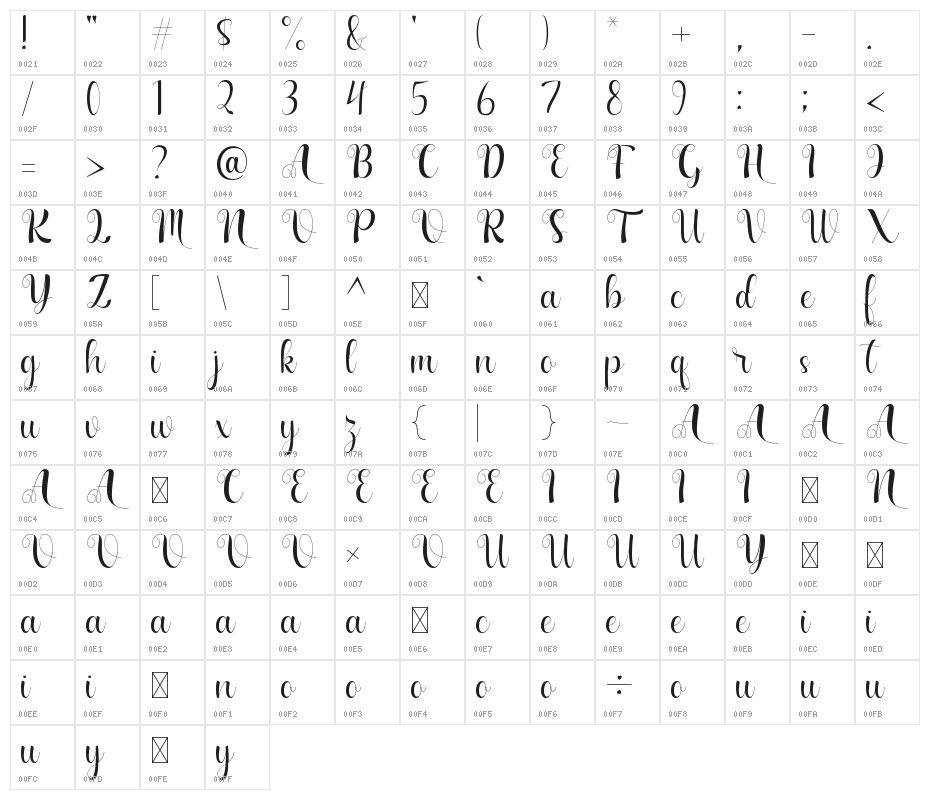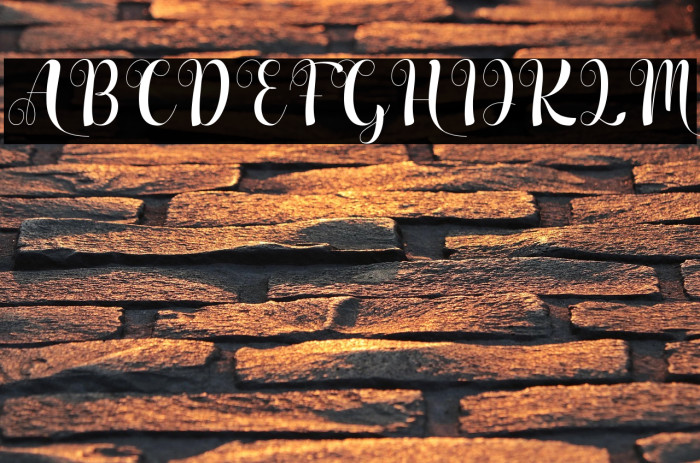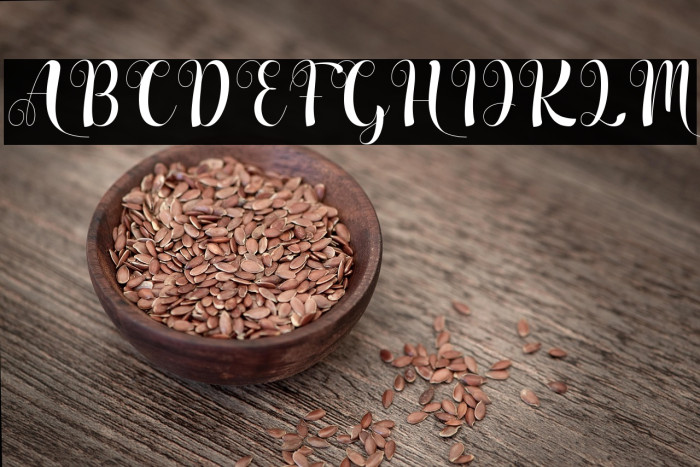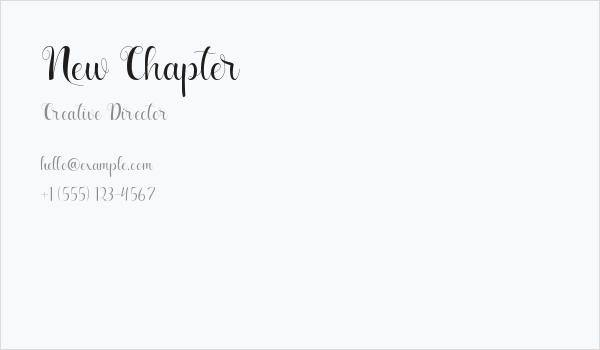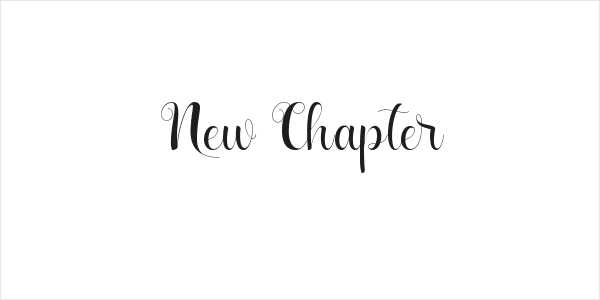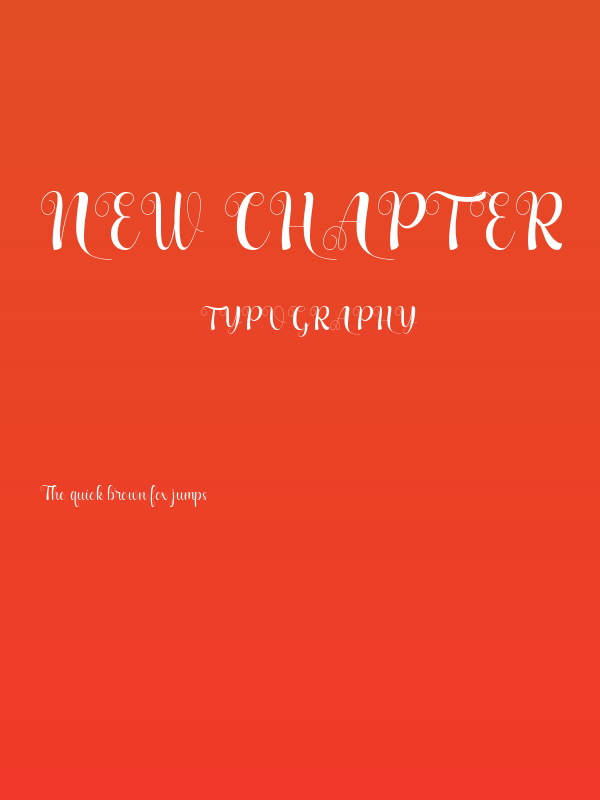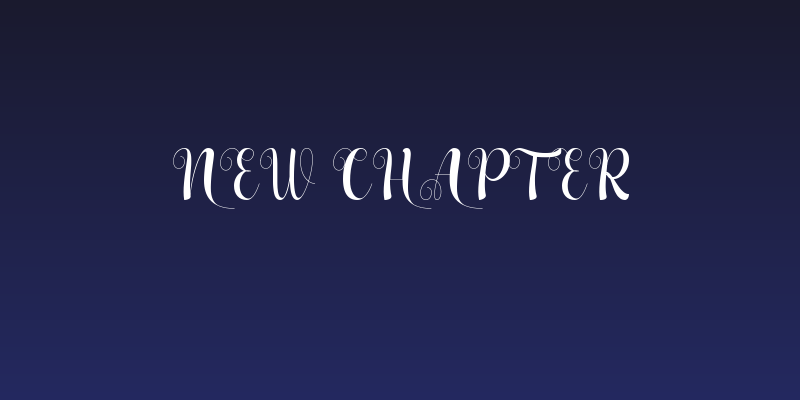
New Chapter Font
New Chapter Description
This elegant script font features graceful, flowing lines and intricate swirls, giving it a sophisticated and artistic appearance. The uppercase letters are adorned with delicate flourishes, while the lowercase letters maintain a smooth, connected style that enhances readability. The numerals are stylishly designed, complementing the overall aesthetic of the font. Special characters are crafted with the same attention to detail, making this font versatile for various design needs. Its refined and decorative nature makes it ideal for projects that require a touch of elegance and creativity.
| Use Case | Logos, Invitations, Decorative text |
| Proposed Projects | Wedding invitations, luxury branding, greeting cards, and elegant packaging. |